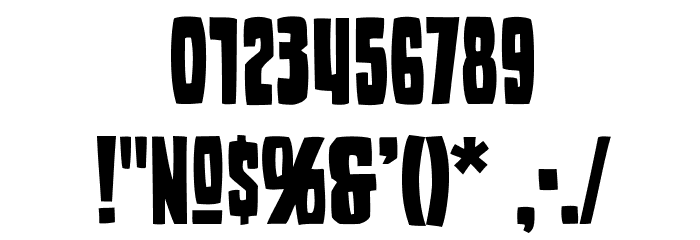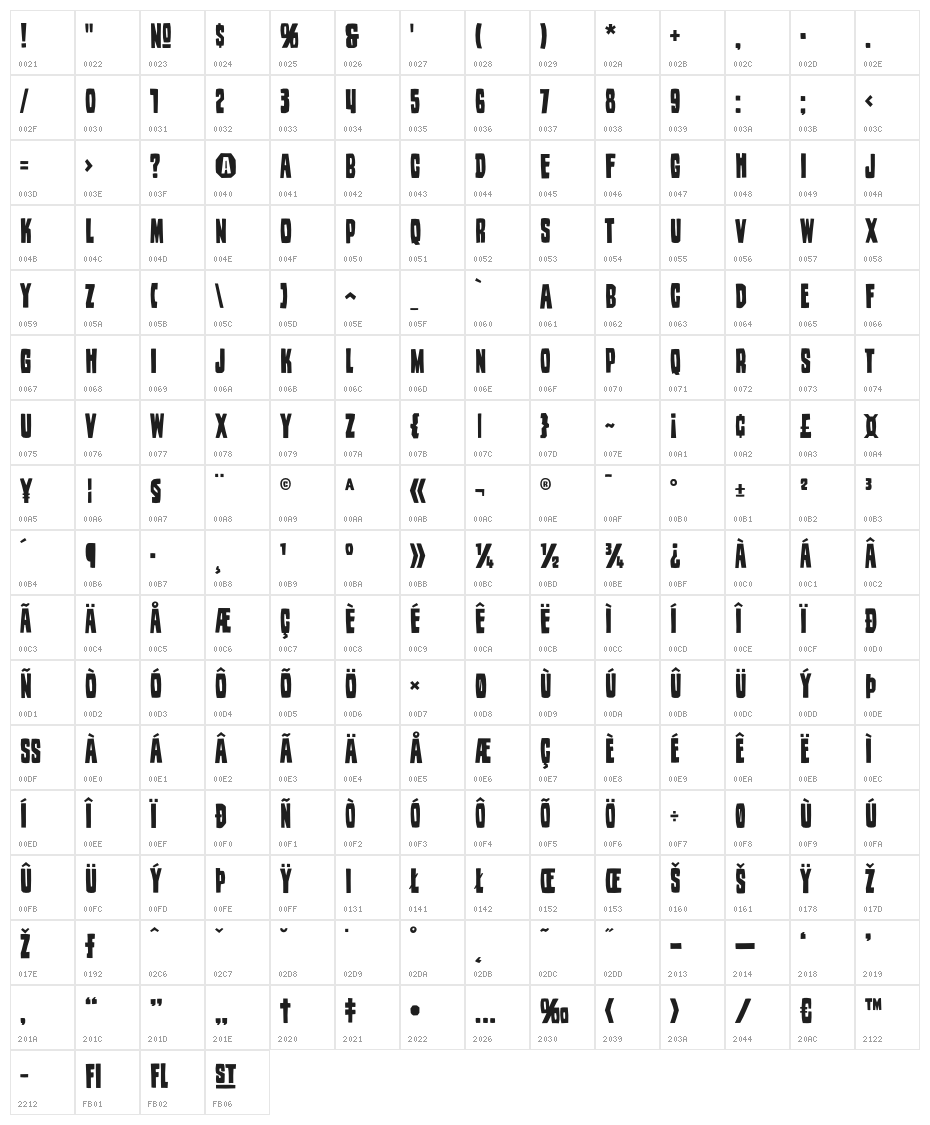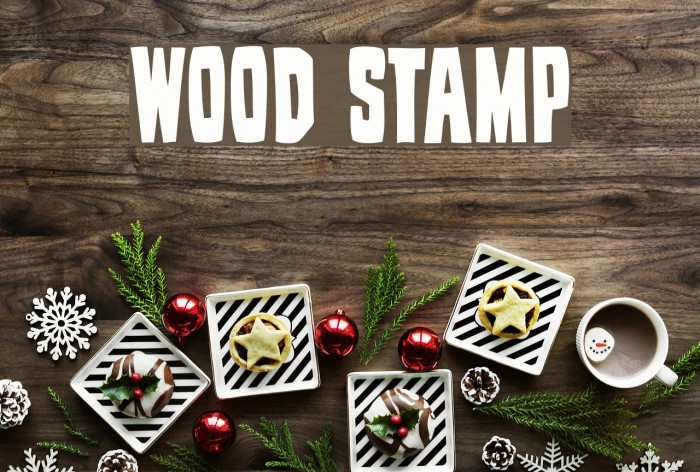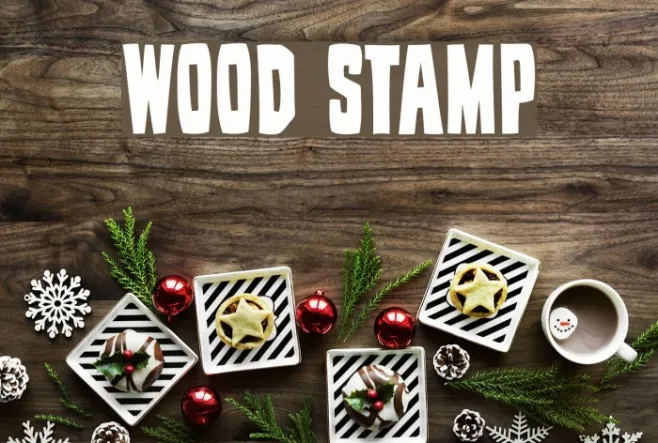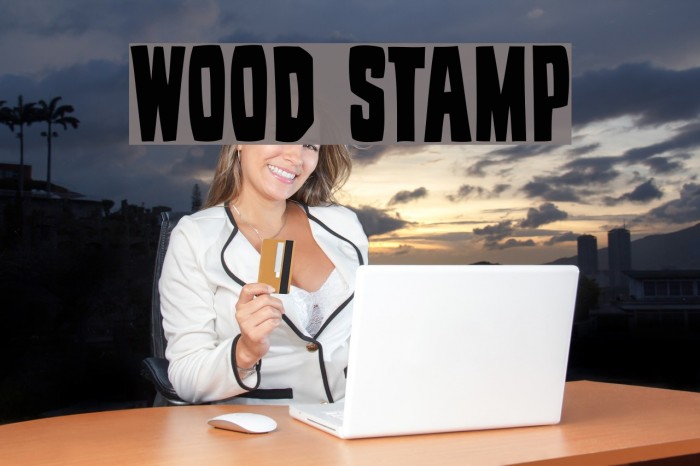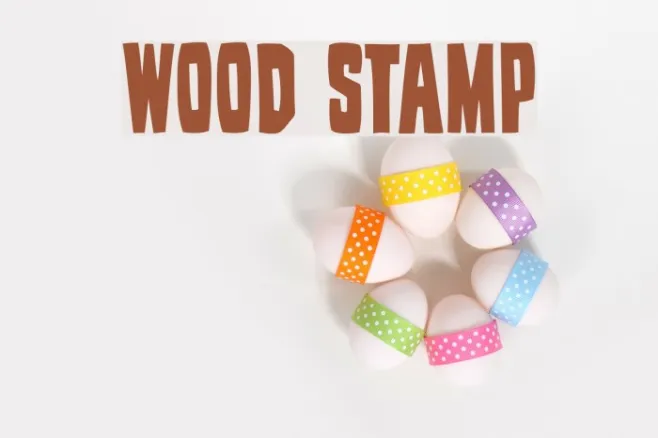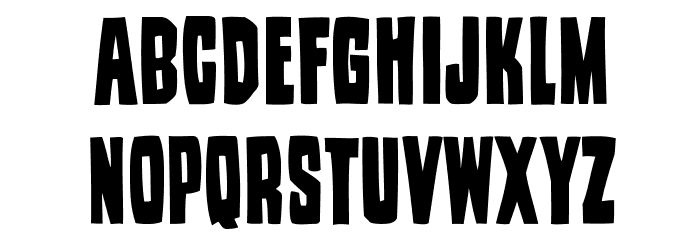
Wood Stamp Font
Wood Stamp Description
This font features a bold and rugged style reminiscent of traditional woodblock printing. The characters are robust and slightly irregular, giving a handcrafted and vintage feel. The uppercase letters are tall and imposing, while the lowercase letters maintain a consistent height, adding to the uniformity. Numbers and special characters are designed to match the boldness of the alphabet, ensuring a cohesive look across all text. The font's distinct appearance makes it ideal for projects that require a strong visual impact.
| Proposed Projects | Ideal for posters, logos, branding, and any design needing a vintage or handcrafted aesthetic. |